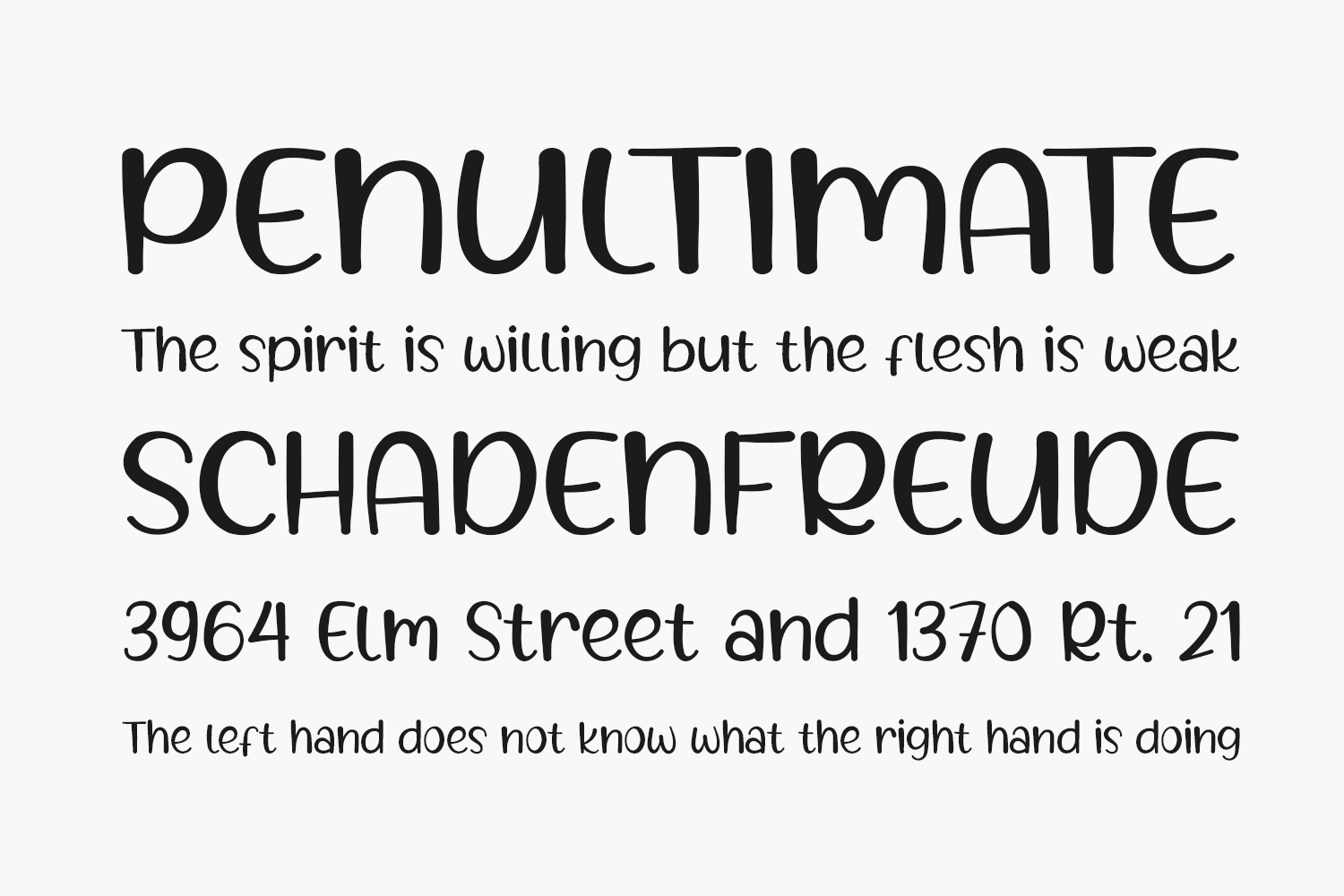
Little Cookies Free Font is a charming and graceful script font that radiates elegance and sophistication. Designed with meticulous attention to detail, this font is perfect for those seeking a stunning and rejuvenating touch for their designs. Whether it’s invitations, branding, packaging, or any other creative project, Little Cookies adds a beautiful and refreshing aesthetic that captivates the viewer. Elevate your designs with the delicate beauty of Little Cookies and experience its transformative effect. Don’t miss the opportunity to incorporate this font into your design arsenal and give your creations a touch of timeless class. Little Cookies Free Font is free for personal or commercial use.
Designed by Erik Studio